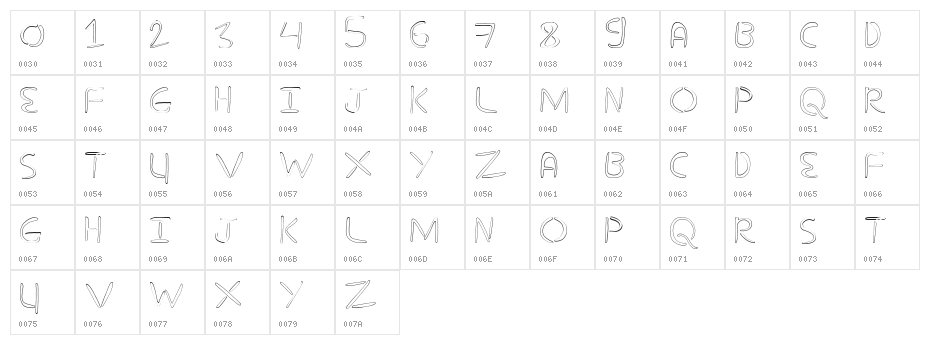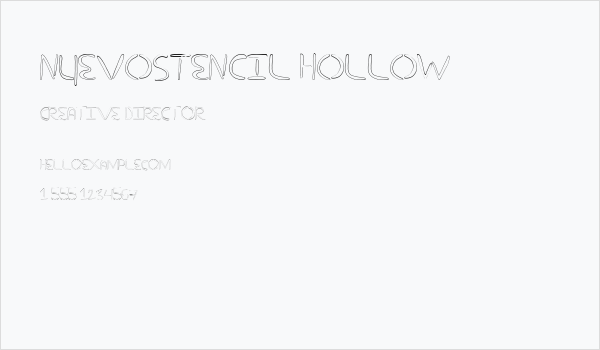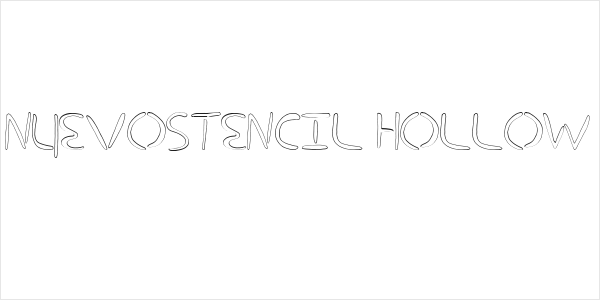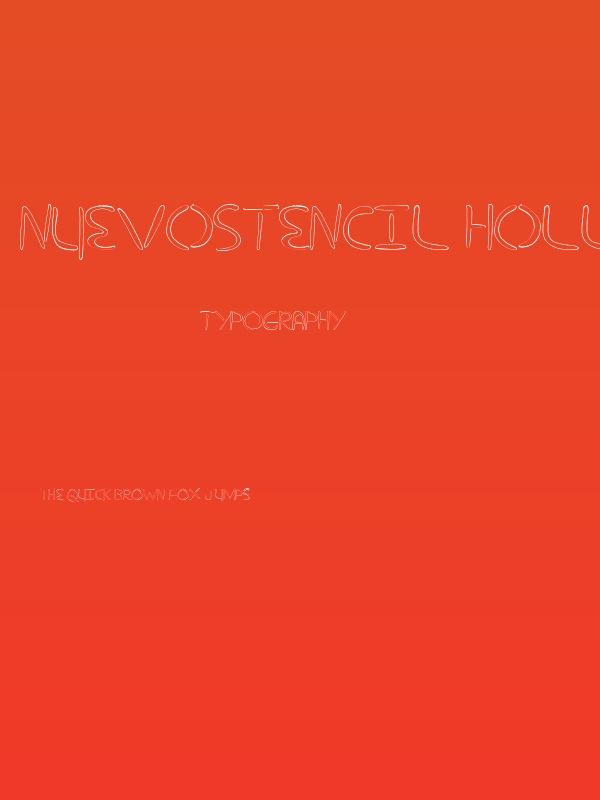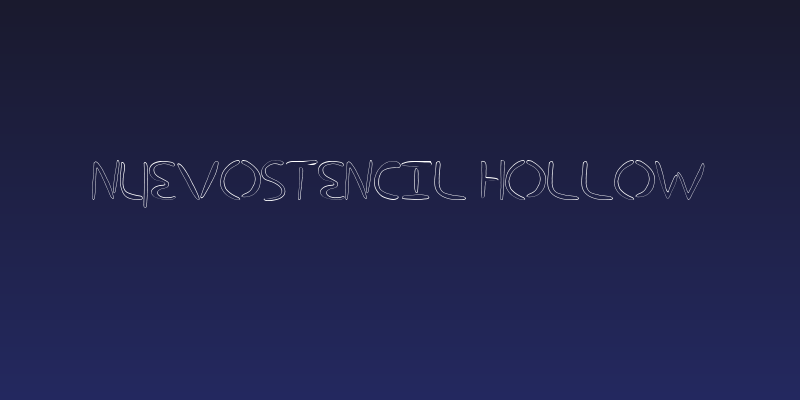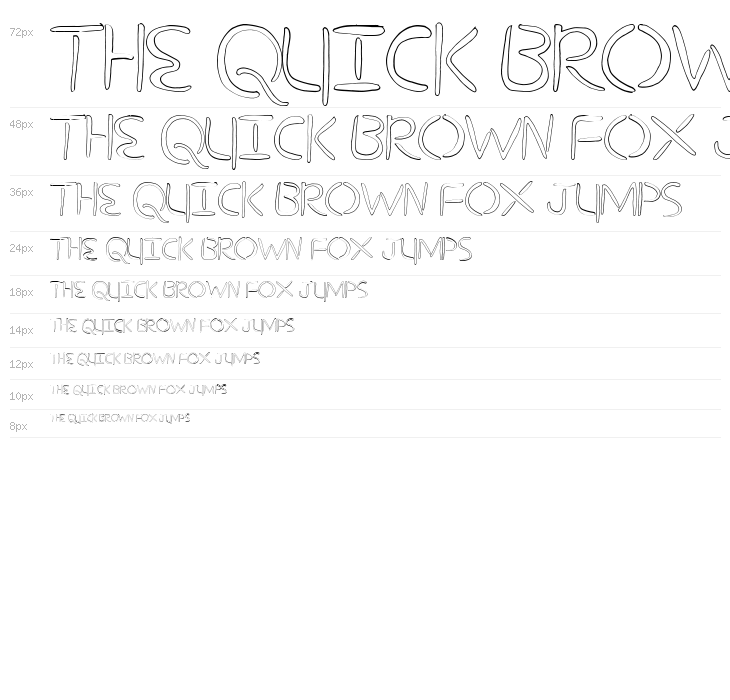
nuevostencil hollow Font
nuevostencil hollow Description
This font features a hollow, stencil-like design that combines a modern aesthetic with a playful touch. The characters are outlined, giving them a light and airy appearance while maintaining a structured form. The uppercase and lowercase letters are consistent in style, with smooth curves and rounded edges that create a harmonious flow. The numerals and special characters follow the same design principles, ensuring uniformity across all glyphs. This font's unique style makes it stand out, offering a creative twist on traditional stencil fonts.
| Use Case | Logos, Posters, Branding |
| Proposed Projects | Ideal for creative projects such as posters, logos, and branding materials where a modern and playful touch is desired. |